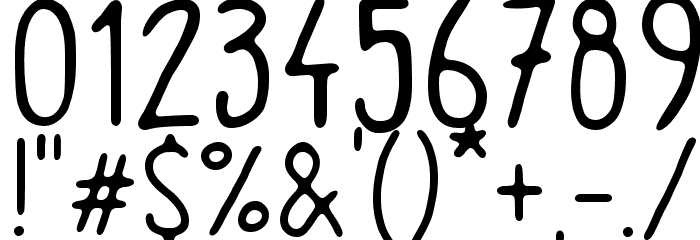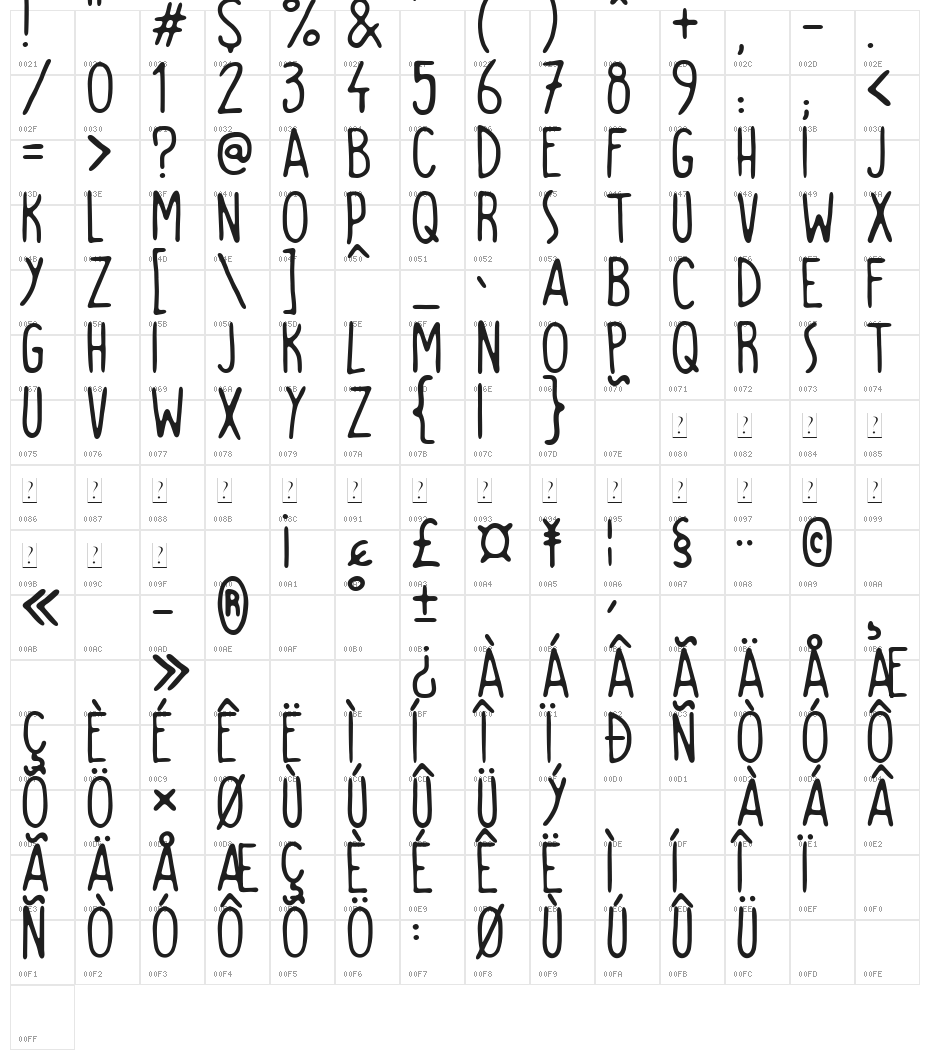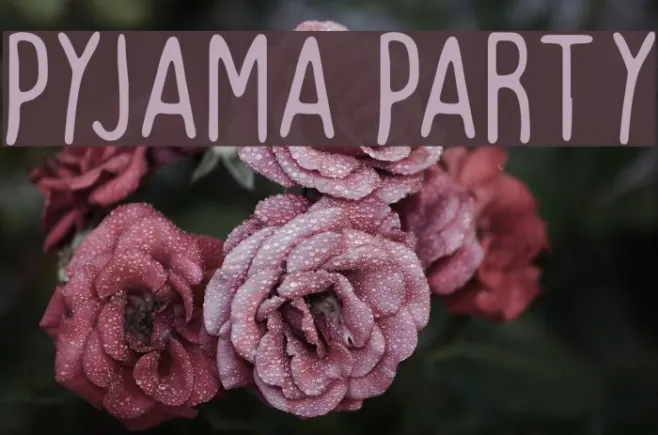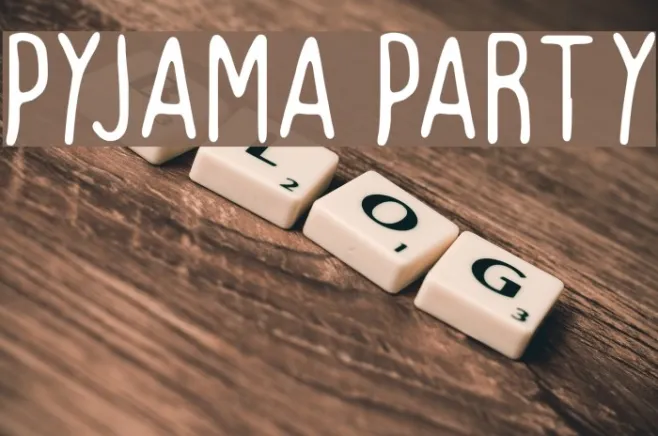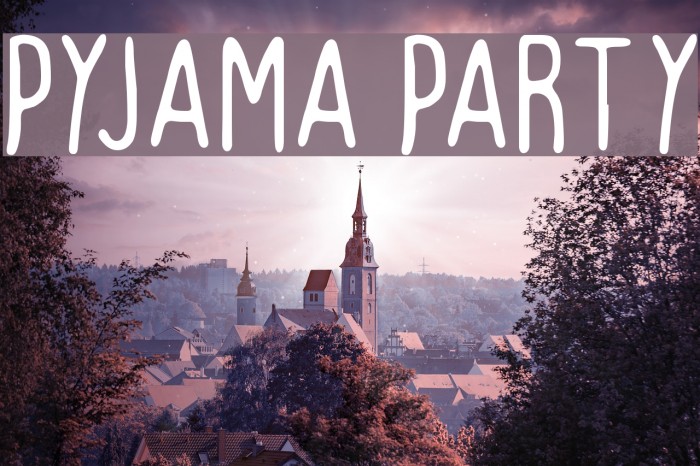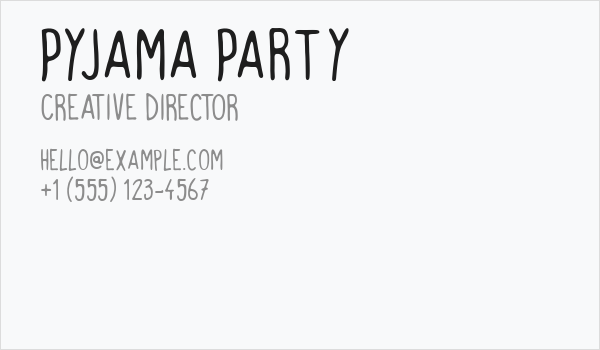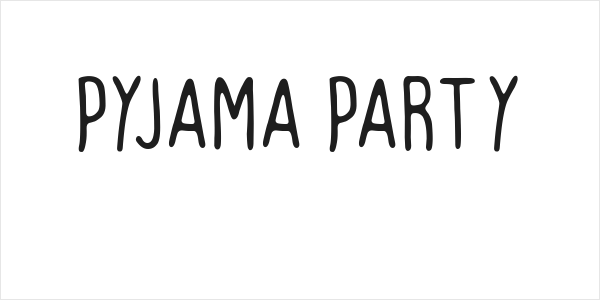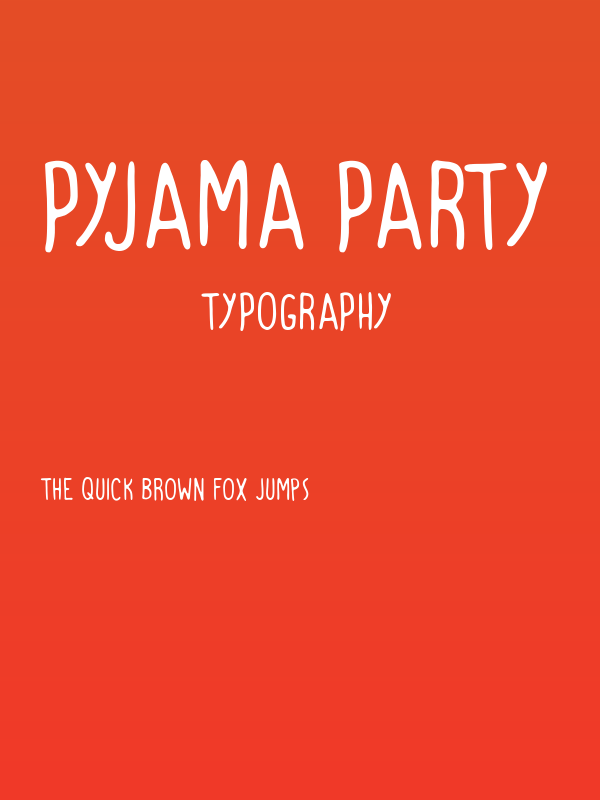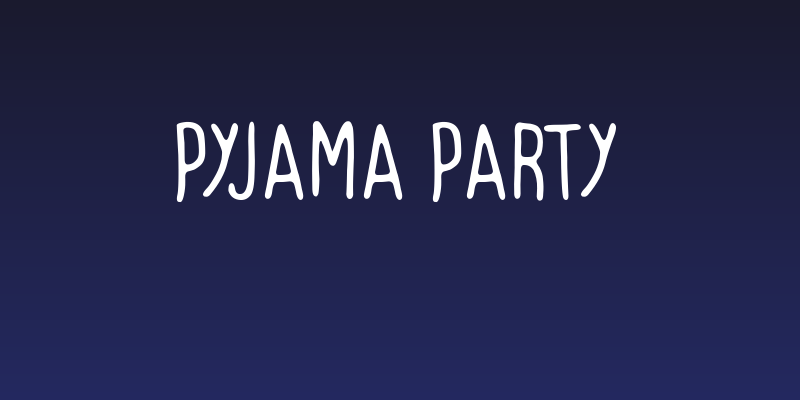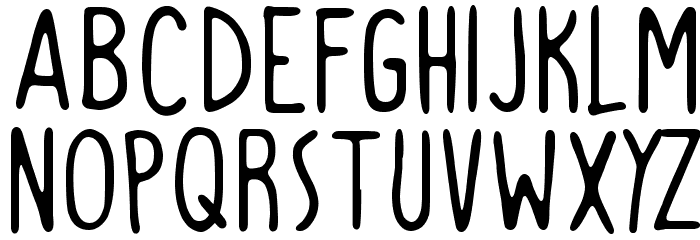
Pyjama Party Font
Pyjama Party Description
This playful and whimsical font features a handwritten style with a casual, friendly appearance. The letters are slightly elongated with rounded edges, giving them a soft and approachable feel. The uppercase and lowercase characters maintain a consistent flow, while the numbers and special characters complement the overall design. The strokes are uniform in thickness, providing a balanced look that is easy to read. This font's informal style makes it perfect for projects that require a touch of personality and charm.
| Use Case | Headlines, Informal text, Invitations |
| Proposed Projects | Ideal for children's books, party invitations, greeting cards, and playful branding. |